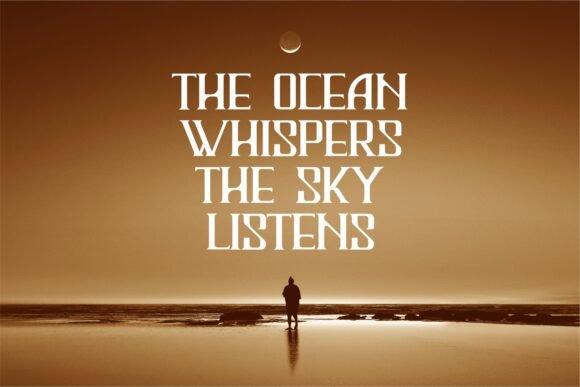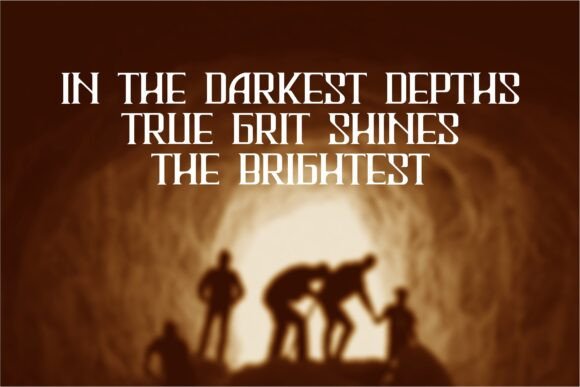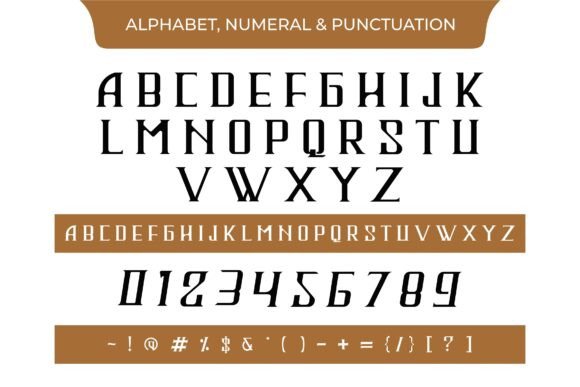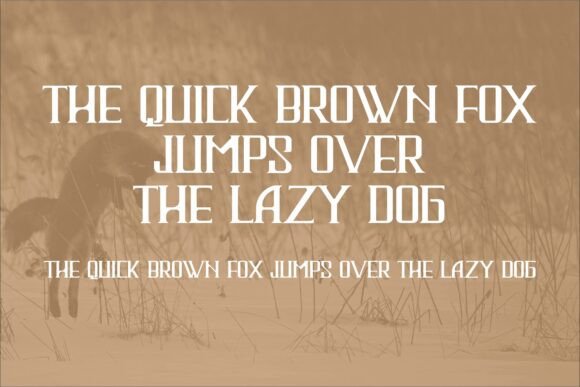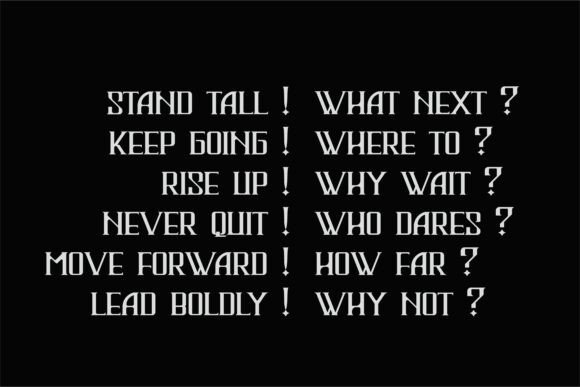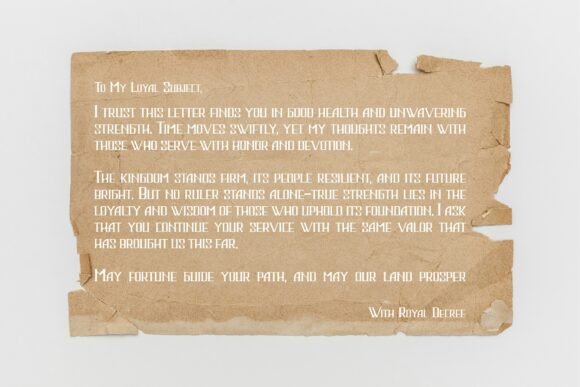
Introduction to Luthandor Font
Luthandor is a classic and elegant serif font, crafted to embody strength, sophistication, and timeless beauty.
Inspired by the grandeur of medieval kingdoms and the refinement of old-world typography, Luthandor stands as a perfect choice for designs that demand authority and prestige .
Key Features of Luthandor Font
Why Choose Luthandor Font?